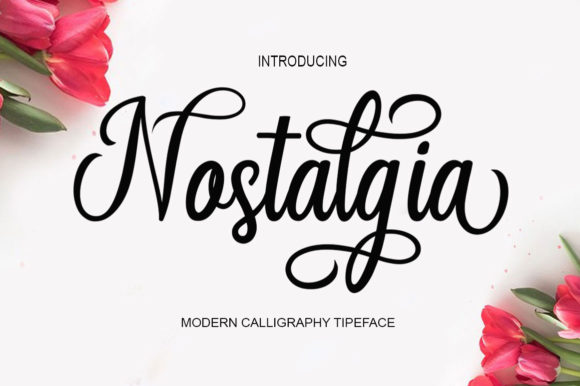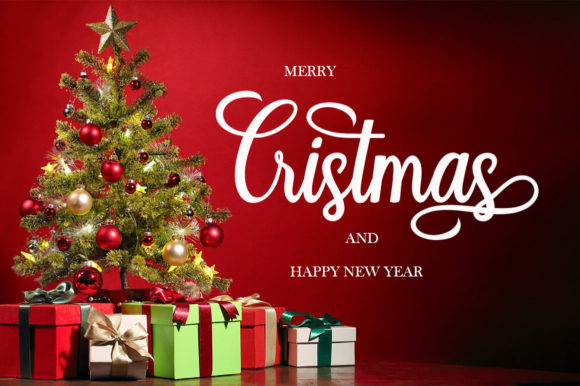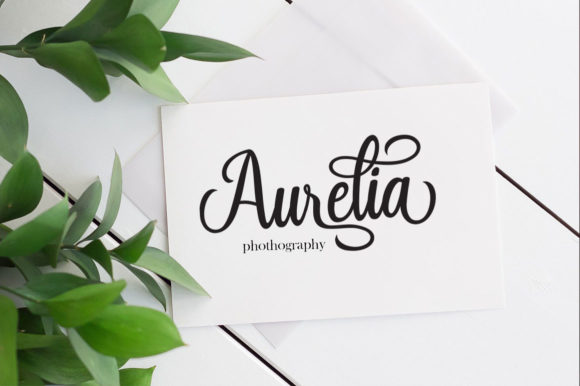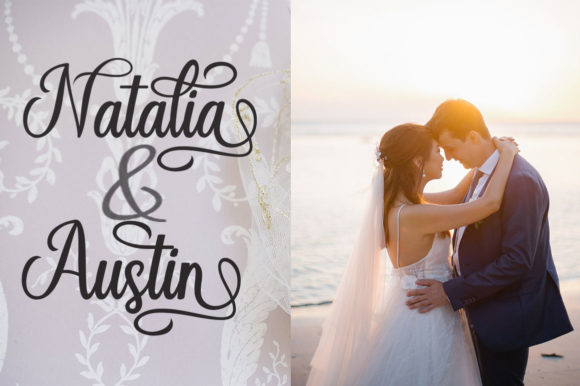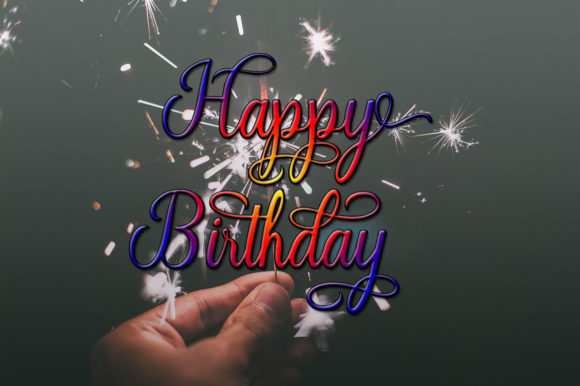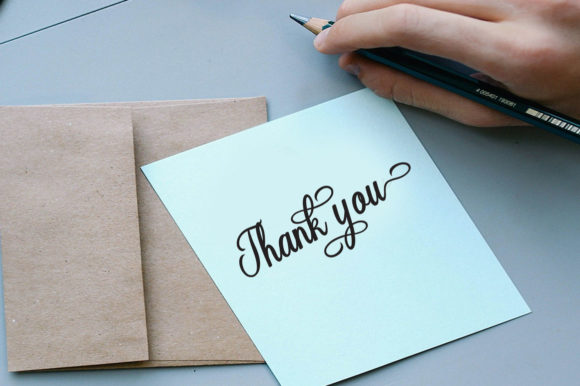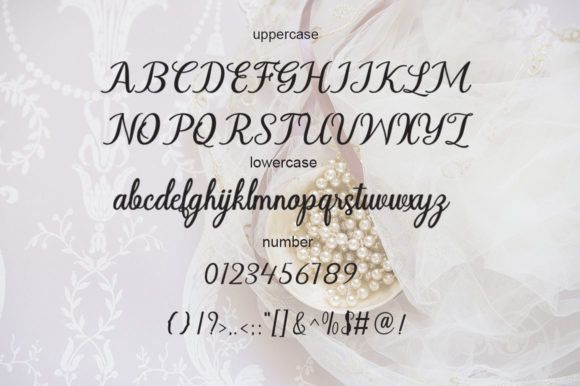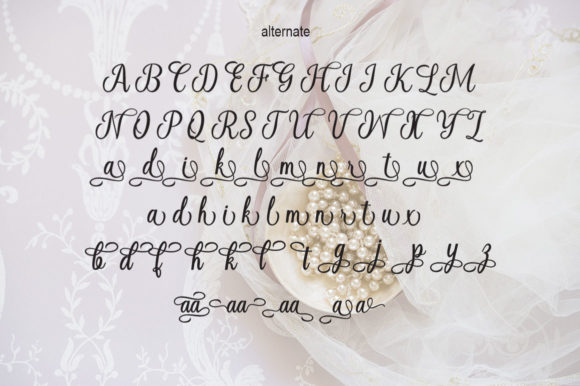
Nostalgia Font
About Nostalgia Font
Nostalgia is a fresh, unique handwritten font with a carefree attitude and a playful edge.
Perfect for adding a quirky but casual feel, it comes with a large selection of natural-looking ligatures.
This font is perfect for logos, invitations, wedding designs, social media posts and much more!